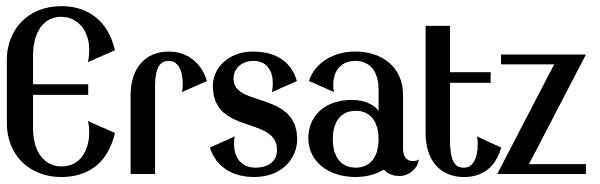
Ersatz
Ersatz has its vibrant roots in the Mediterranean climate of Spain. Tired of the functional monoline sanserif fonts used throughout Europe from road signage to corporate identity, Richard Dawson and Dave Farey, British type designers who crave color...